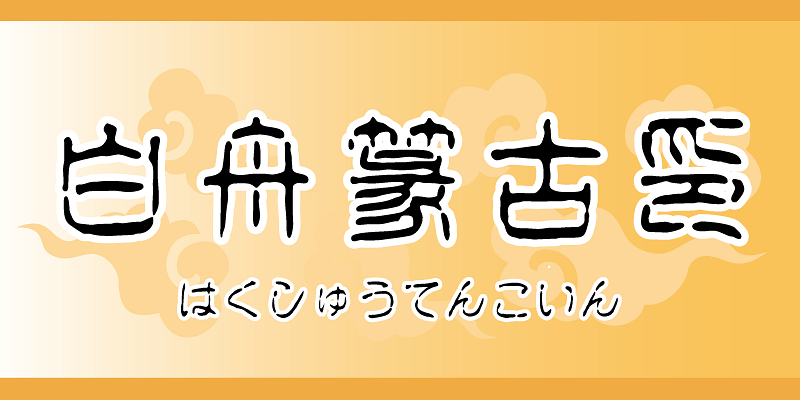
With expertise from our origins as a seal shop, we created this typeface based on the tensho (traditional seal script style) structure with design elements of kointai (antique seal script style) incorporated.